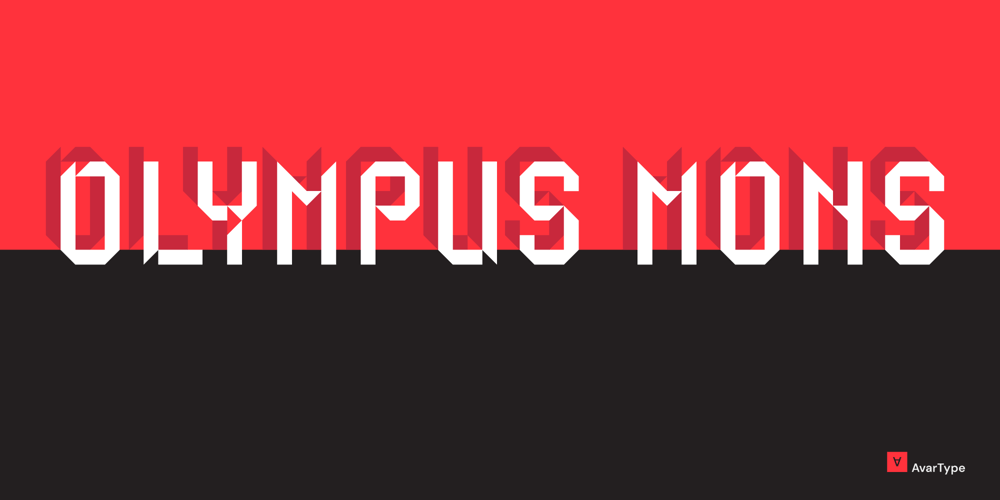
Olympus Mons Font Family was designed by Dániel Avarkeszi and published by AvarType. Olympus Mons contains 1 styles and family package options. Olympus Mons is a geometric display font, characterized by sharp edges and straight lines, designed to support all European languages. It is intended to be used for headings as well as smaller information, by brands associated by masculinity, power, and ambitious goals.